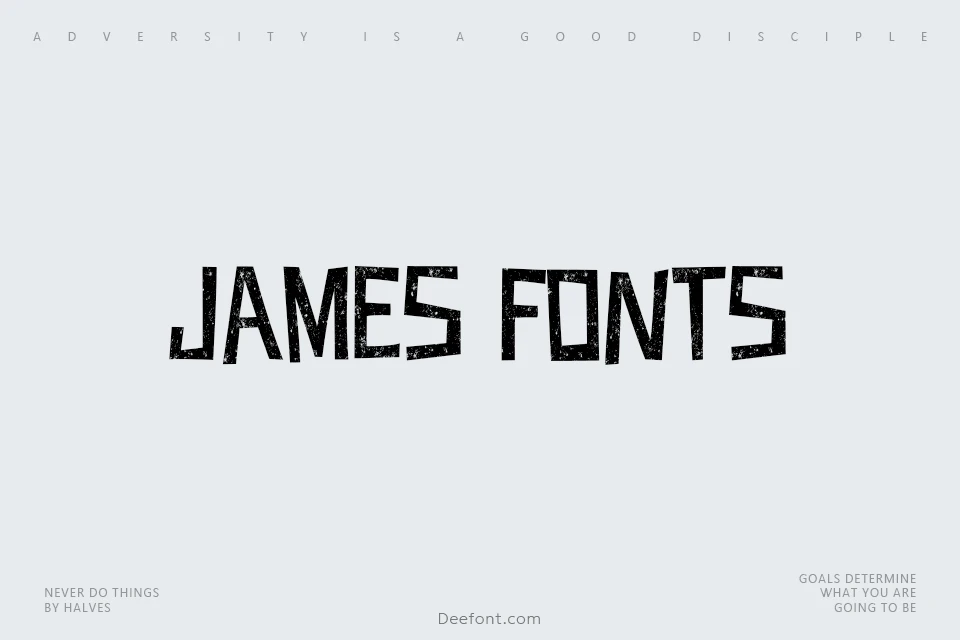
James Fonts Font
James Fonts Font is a bold, rough-edged display typeface inspired by vintage comic book lettering, designed to bring a playful and dynamic feel to your creative projects. Its textured, hand-drawn style makes it ideal for posters, headlines, and any design seeking a touch of retro character and visual impact.
Designed by:Harder Type Foundry